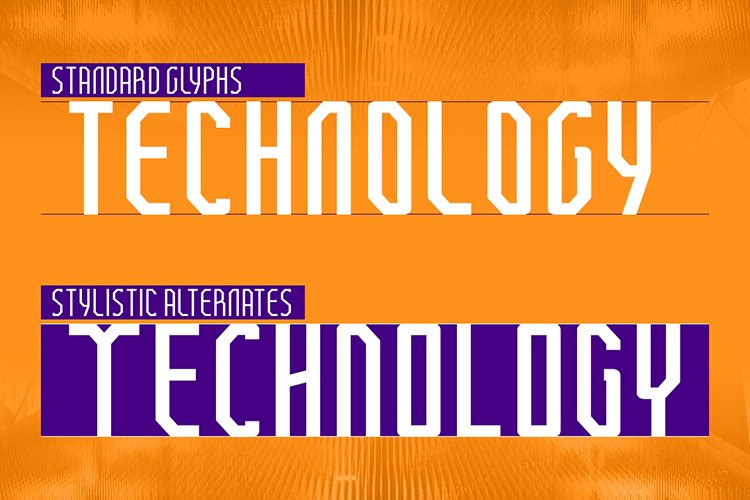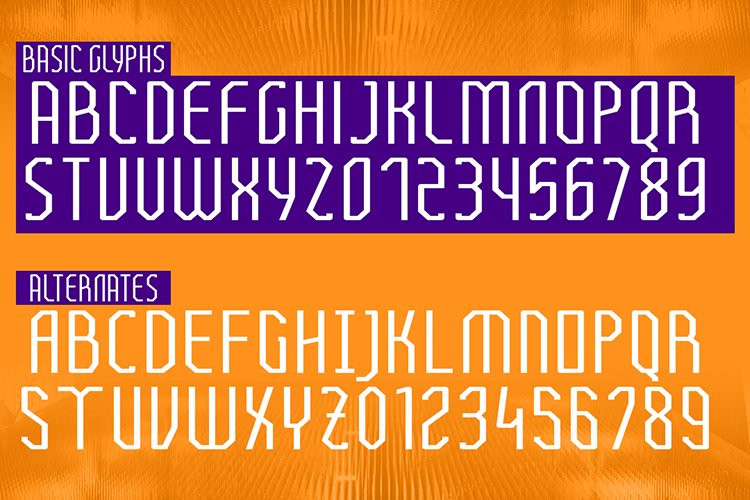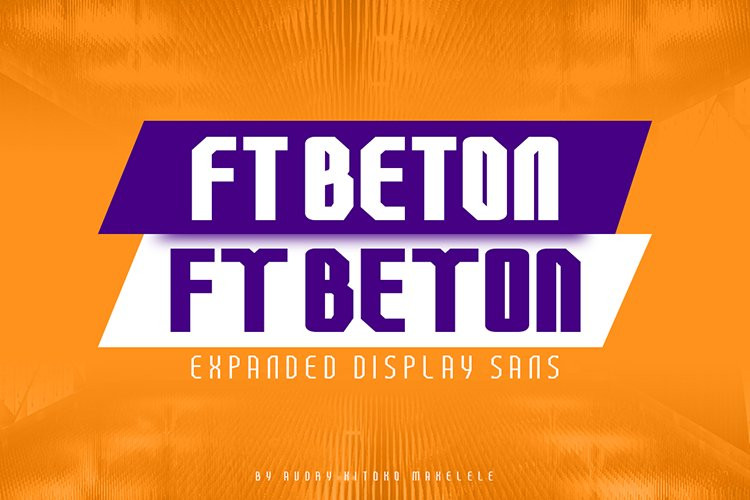
FT Beton Expanded Font
FT Beton is a cool and modern display font. Expertly designed to make your creation look out of this world, this font has the potential to take your creative ideas far further.